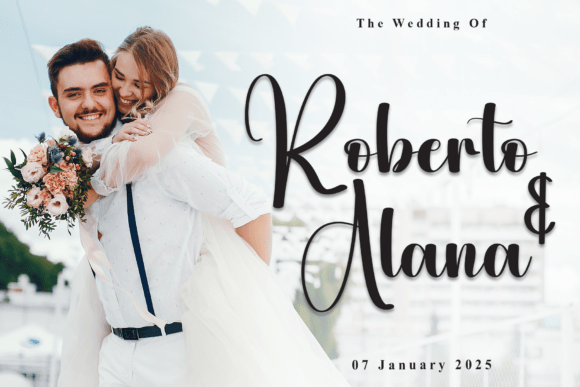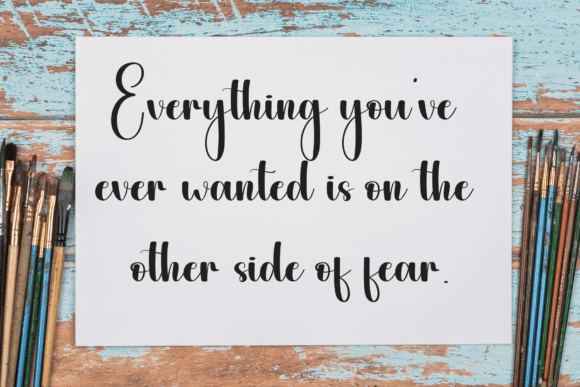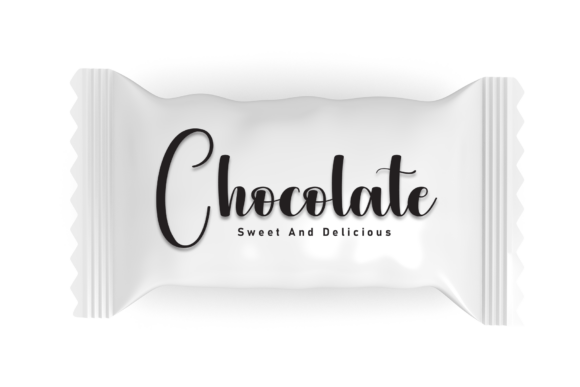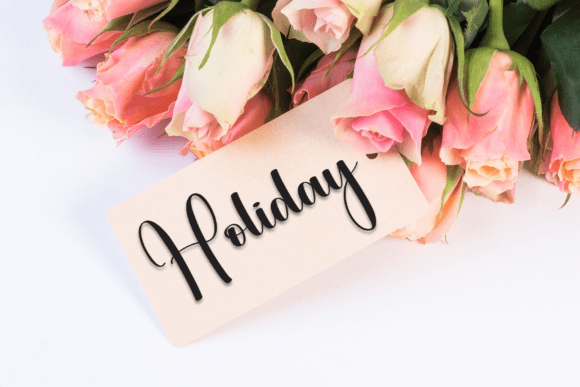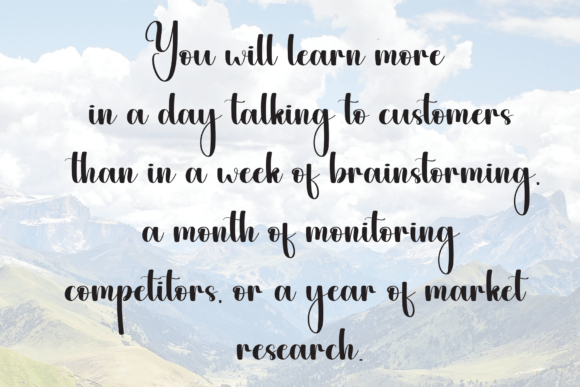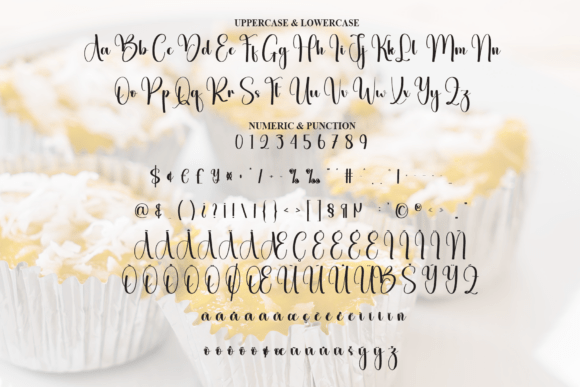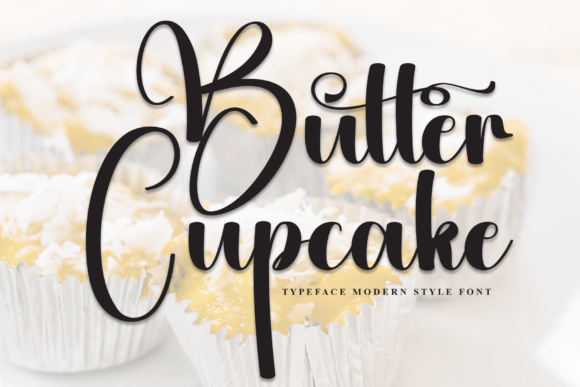
The Sweet Spot: Discovering the Elegance of Butter Cupcake Font
I’ll never forget the time I was working on a wedding invitation project, and my client asked for a font that was ” elegant, yet playful.” I scoured the internet, tried out dozens of fonts, but nothing seemed quite right. That was until I stumbled upon Butter Cupcake Font. Its fluid, graceful strokes immediately caught my eye, and I knew I had found the perfect fit. In this article, I’ll share my experience with Butter Cupcake Font, its features, and how to make the most of it in your designs.
A First Impression: What I Love About Butter Cupcake Font
Butter Cupcake Font is a stylish handwritten script font that exudes elegance and charm. Here are some things I love about it:
- ✨ Fluid and graceful strokes: The font’s smooth curves and natural flow create a timeless, refined look for any design.
- ✅ Perfect for branding and invitations: Butter Cupcake Font adds a personal and sophisticated touch to any project.
- 🎨 Versatile and creative: The font’s elegant strokes make it suitable for a wide range of design applications, from stationery to digital media.
The Not-So-Perfect: Small Quirks and Limitations
While Butter Cupcake Font is an excellent choice for many projects, it’s not without its quirks:
- 🤔 Limited use in body text: Due to its script nature, Butter Cupcake Font may not be the best choice for long blocks of body text.
- ⚠️ Requires attention to spacing: To ensure optimal readability, you may need to adjust the spacing between letters and words.
Exploring Alternatives: Similar Fonts to Butter Cupcake Font
If you like Butter Cupcake Font, you might also enjoy these similar fonts:
- Pacifico: A beautiful, elegant script font with a relaxed, personal feel. Use it for branding and invitations.
- Great Vibes: A stylish script font with a fun, energetic vibe. Suitable for headings and titles.
- Lobster: A classic, elegant script font with a sophisticated feel. Ideal for wedding invitations and formal events.
- Carolyna Pro: A beautiful, refined script font with a feminine touch. Use it for branding, invitations, and stationery.
The Story Behind Butter Cupcake Font
Butter Cupcake Font was designed by a talented typographer who wanted to create a font that was both elegant and approachable. Inspired by the fluid strokes of handwritten scripts, the designer crafted a font that would add a personal touch to any design. While the designer’s story is fictional, the font’s charm and character are very real.
| Font Name | Butter Cupcake Font |
| What is Butter Cupcake Font best used for? | Butter Cupcake Font is perfect for branding, invitations, and stationery due to its elegant and charming nature. |
| Is Butter Cupcake Font suitable for body text? | While it’s possible to use Butter Cupcake Font for body text, it’s not the most recommended choice due to its script nature and potential readability issues. |